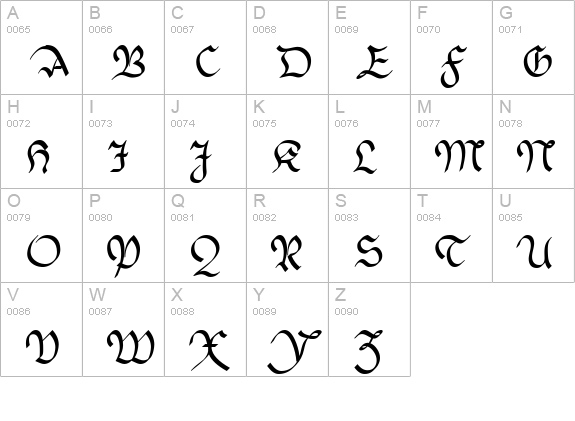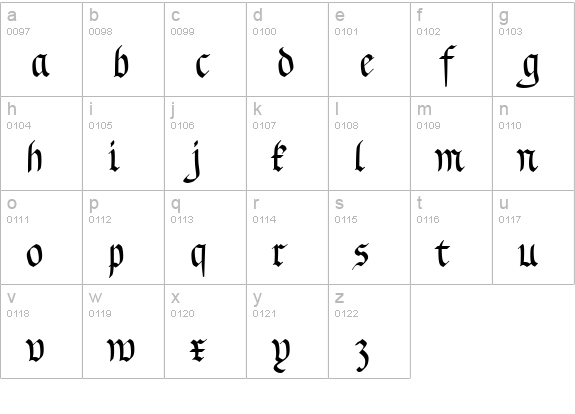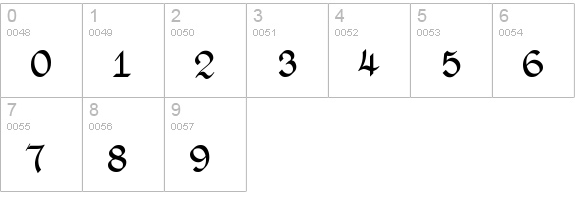
Zumbelsburg Bold Font Details
Zumbelsburg Bold is a strong, high-contrast variant in the Zumbelsburg typeface family \xE2\x80\x94 well suited to headlines, attention-grabbing titles, and strong calls-to-action.
Zumbelsburg Bold font is a striking and versatile typeface that commands attention with its bold and impactful design. Perfect for headlines, titles, and branding projects, this font exudes confidence and modernity. The strong, thick strokes give it a powerful presence on any design, making it ideal for making a statement. What sets Zumbelsburg Bold font apart is its unique blend of contemporary style and timeless elegance. The sleek lines and sharp angles create a visual impact that is both bold and sophisticated. Whether you're designing a poster, logo, or website, this font will elevate your project and give it a professional edge. Best of all, Zumbelsburg Bold font is available for free download at FontsMarket.com. This means you can easily access this high-quality typeface without any cost, making it a valuable addition to your font collection. Don't miss out on the opportunity to enhance your designs with the bold and captivating Zumbelsburg Bold font.